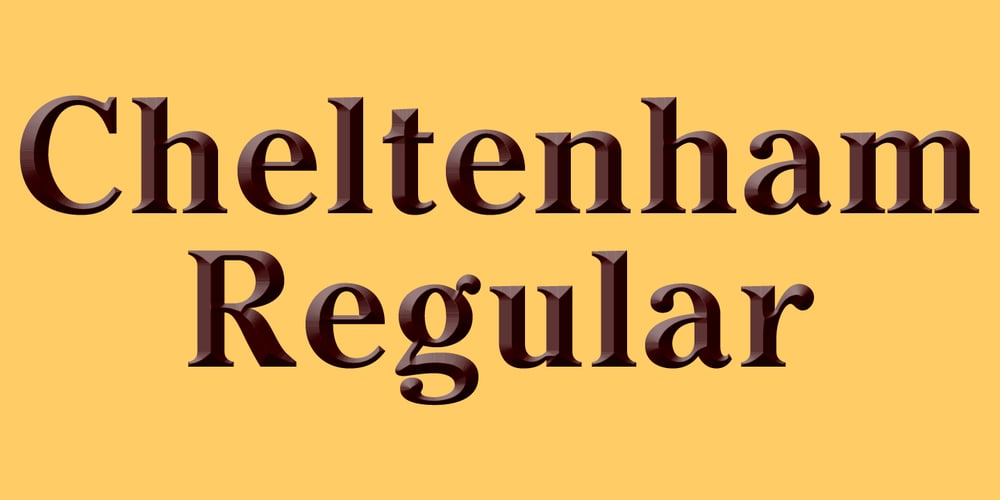
Cheltenham
Cheltenham font
Cheltenham Font Family was designed by Jordan Davies and published by Wooden Type Fonts. Cheltenham contains 1 styles and family package options. A revival of one of the popular text fonts of the 19th century, suitable for text or display, short descenders, tall ascenders, the regular text version.